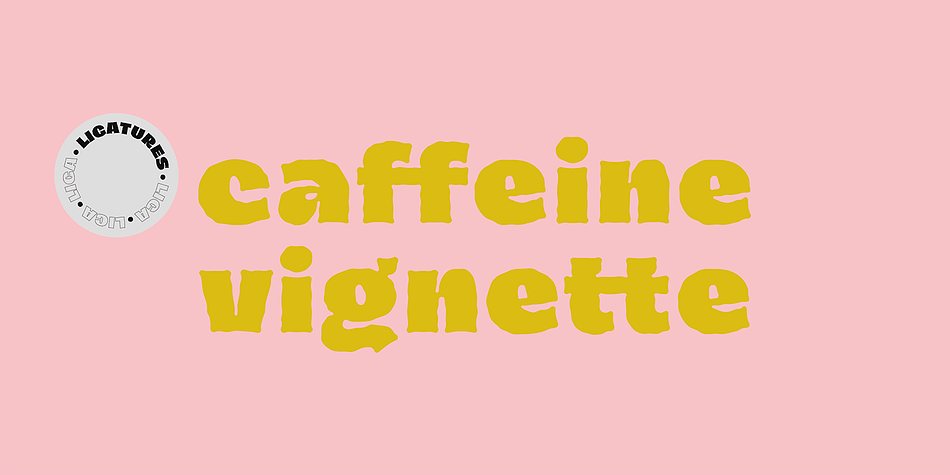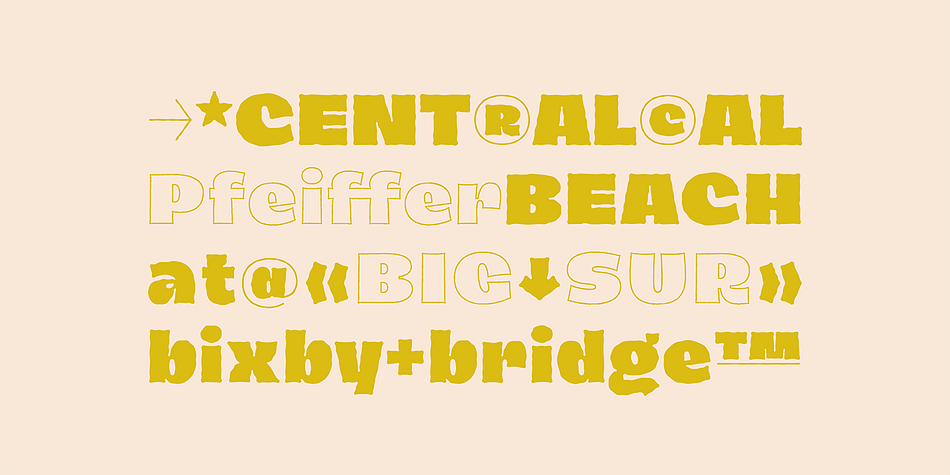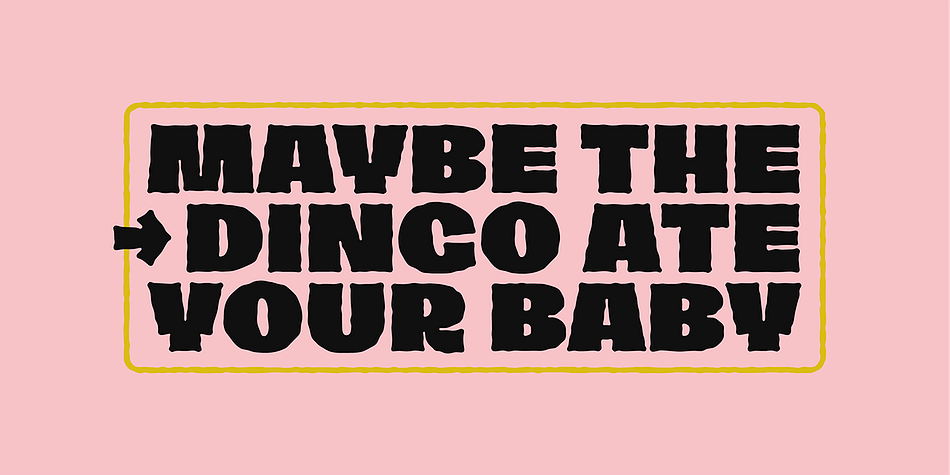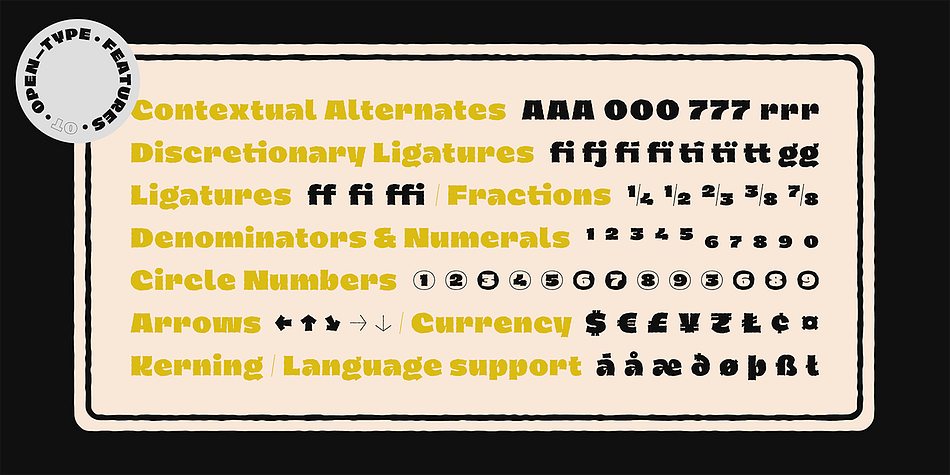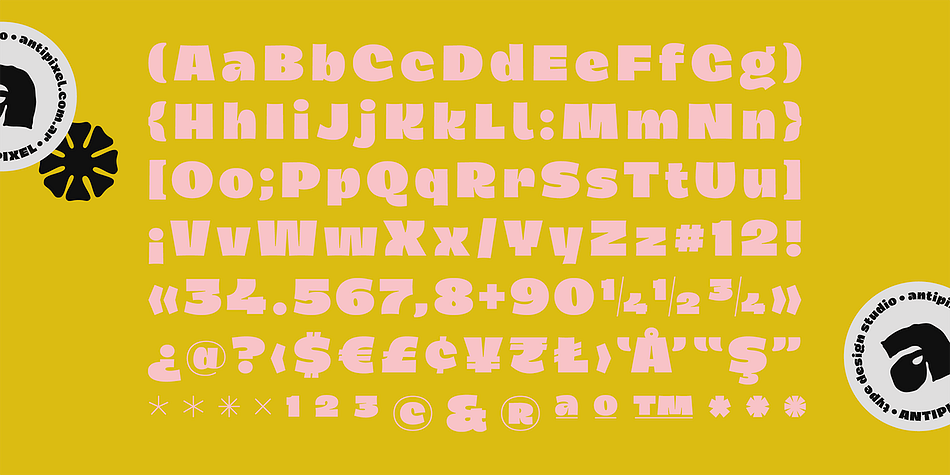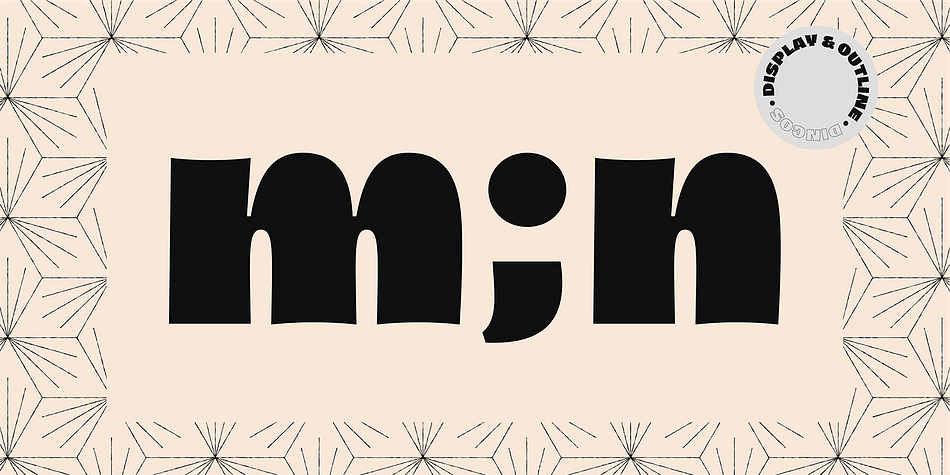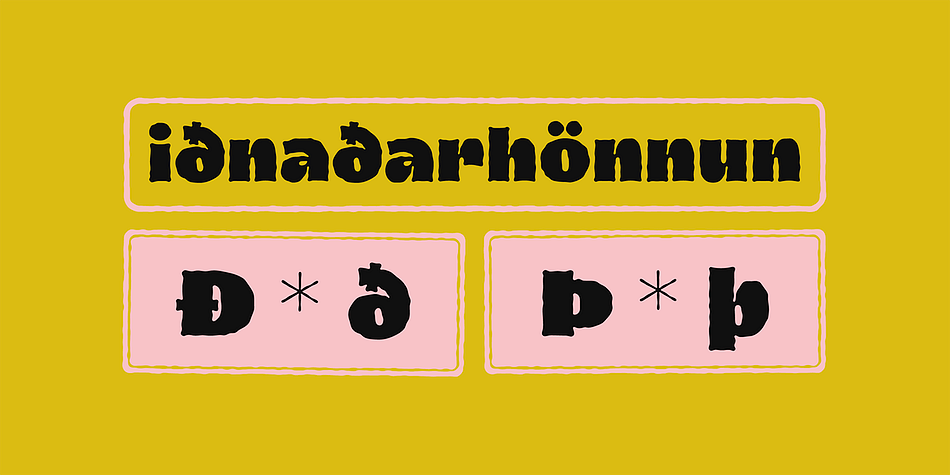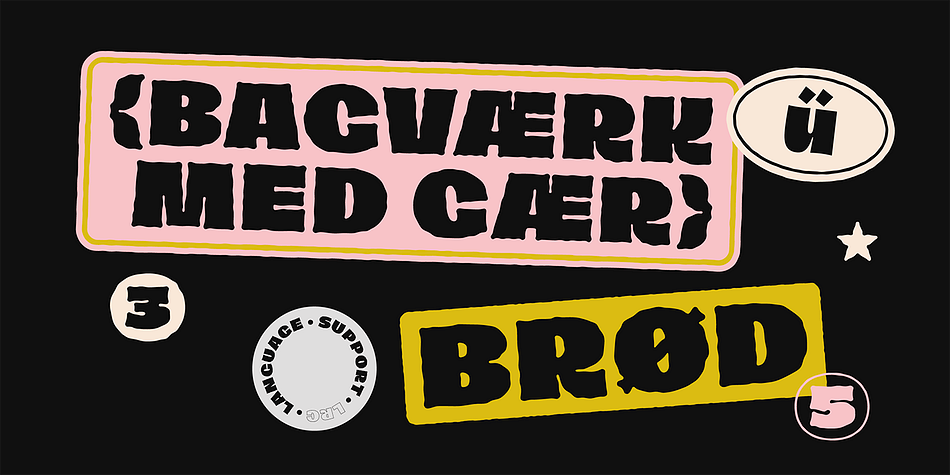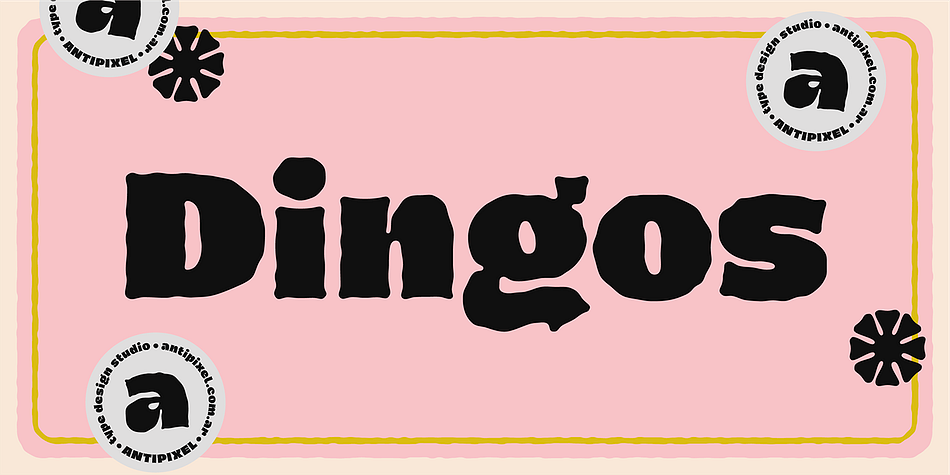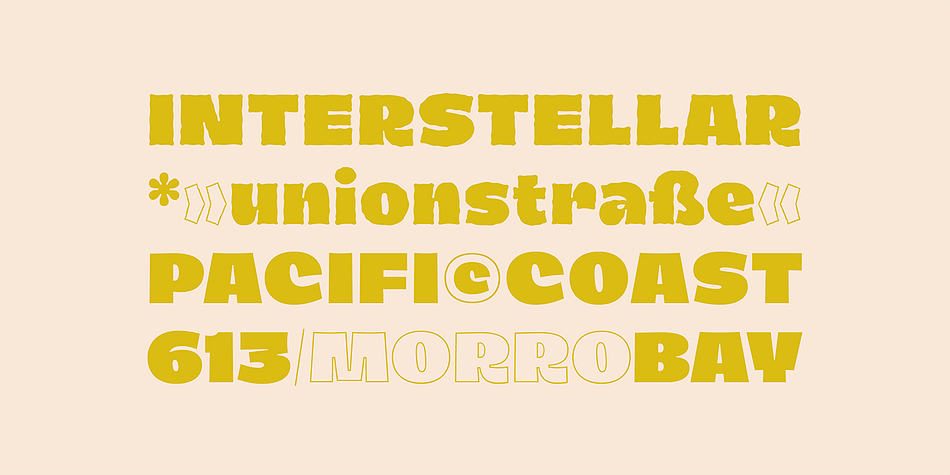
Designed by Julia Martinez Diana, Dingos is a display sans and hand display font family. This typeface has four styles and was published by Antipixel.
Dingos is a display typeface specially handcrafted for potent usage. It is compact, solid, and dense, with a heavy-built structure, tight internal space, and a versatile touch.
Dingos is perfect for large settings due to its precise shapes. The ‘Display’ and ‘Display Outline’ styles have sharp and clean paths with angular ink traps, while ‘Stamp’ and ‘Stamp Outline’ have round ink traps and irregular, soft, curvy outlines optimized to ensure high-quality contours.
Stamp textured styles have three sets of alphabets that slightly differ from one another. Thanks to the Contextual Alternates, these alphabets are automatically alternated to avoid repeating the same curvy textures.
Some of Dingos’ features are ligatures, discretionary ligatures, stylistic sets, numerators, fractions for any number combinations, arrows, special decorative characters, and a glyph coverage that ensures extended language support.